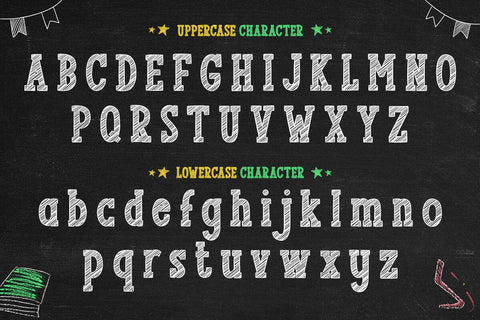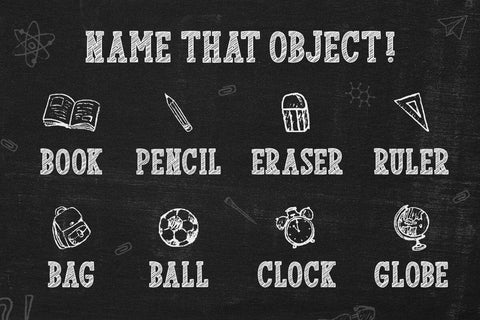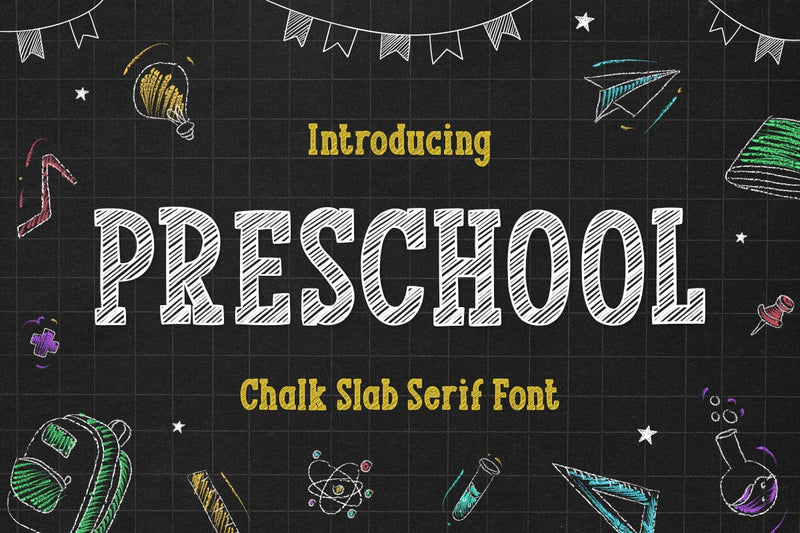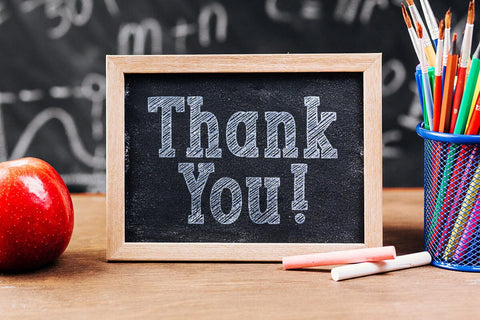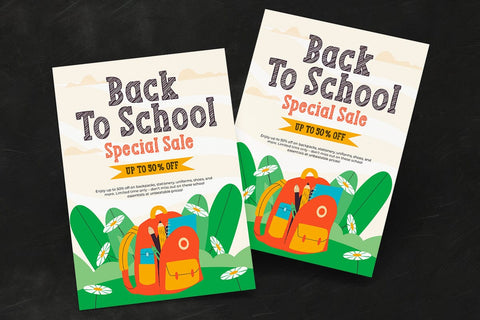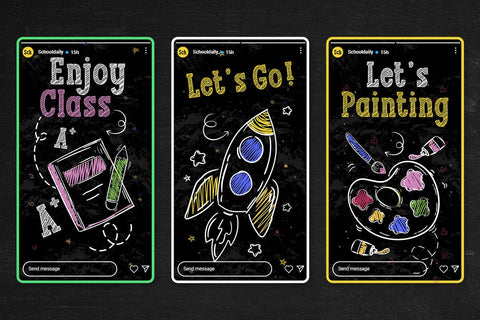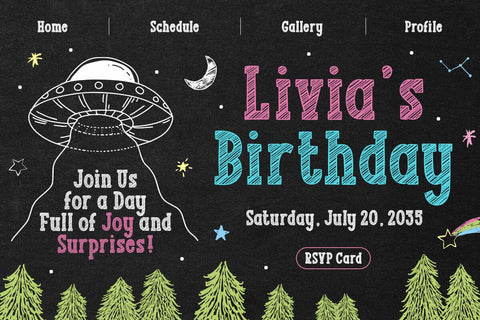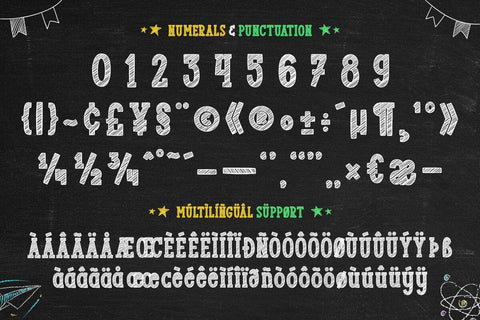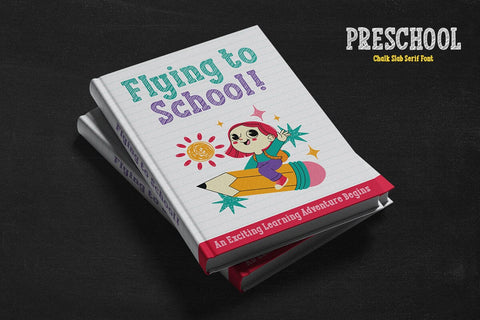
PRESCHOOL - Chalk Font
Introducing PRESCHOOL, a fun and cheerful chalk-style display font that brings the charm of a classroom chalkboard right to your creative projects! Designed to mimic the playful strokes of hand-drawn chalk writing, this font adds a delightful, nostalgic touch to any design. Its bold and quirky characters are perfect for capturing the innocence and joy of early school days.
PRESCHOOL is the ideal font for school-themed projects, from bulletin boards and classroom decorations to kids’ activity books and educational materials. Its friendly and legible design ensures it stands out, making learning fun and visually engaging. Whether you’re designing for teachers, students, or parents, this font adds that special classroom magic.
But this font goes beyond the classroom! PRESCHOOL shines in seasonal and festive themes, making it perfect for birthday parties, Easter crafts, Thanksgiving menus, and even Christmas cards. It blends beautifully into spring and summer projects and adds a cozy touch to autumn designs. It's also a great choice for Cricut and embroidery projects, giving your handmade items a warm, whimsical personality.
This versatile font is great for lettering, scrapbooking, SVG designs, and all your DIY crafting needs. Whether you're working on digital products or physical crafts, PRESCHOOL provides a handcrafted feel that appeals to both kids and adults alike. Its expressive, chalky texture gives every word a burst of creativity and charm.
- Standard & Multilingual glyphs.